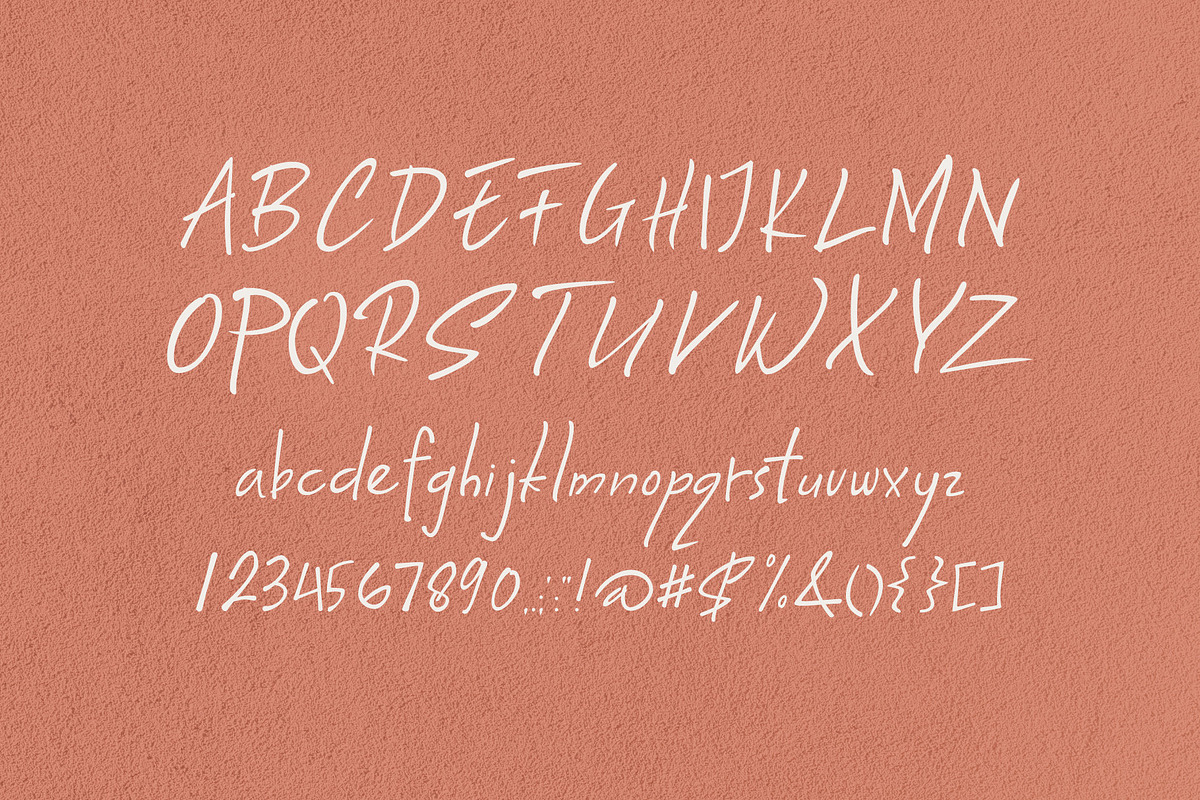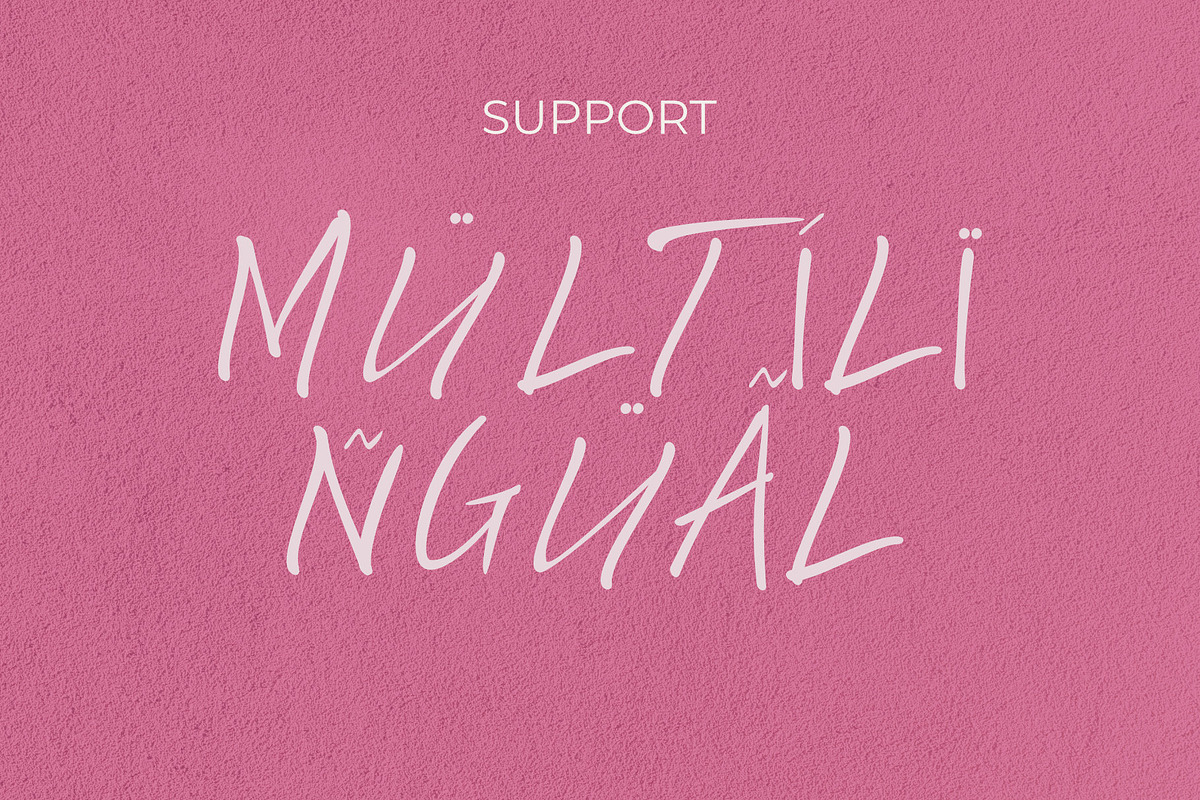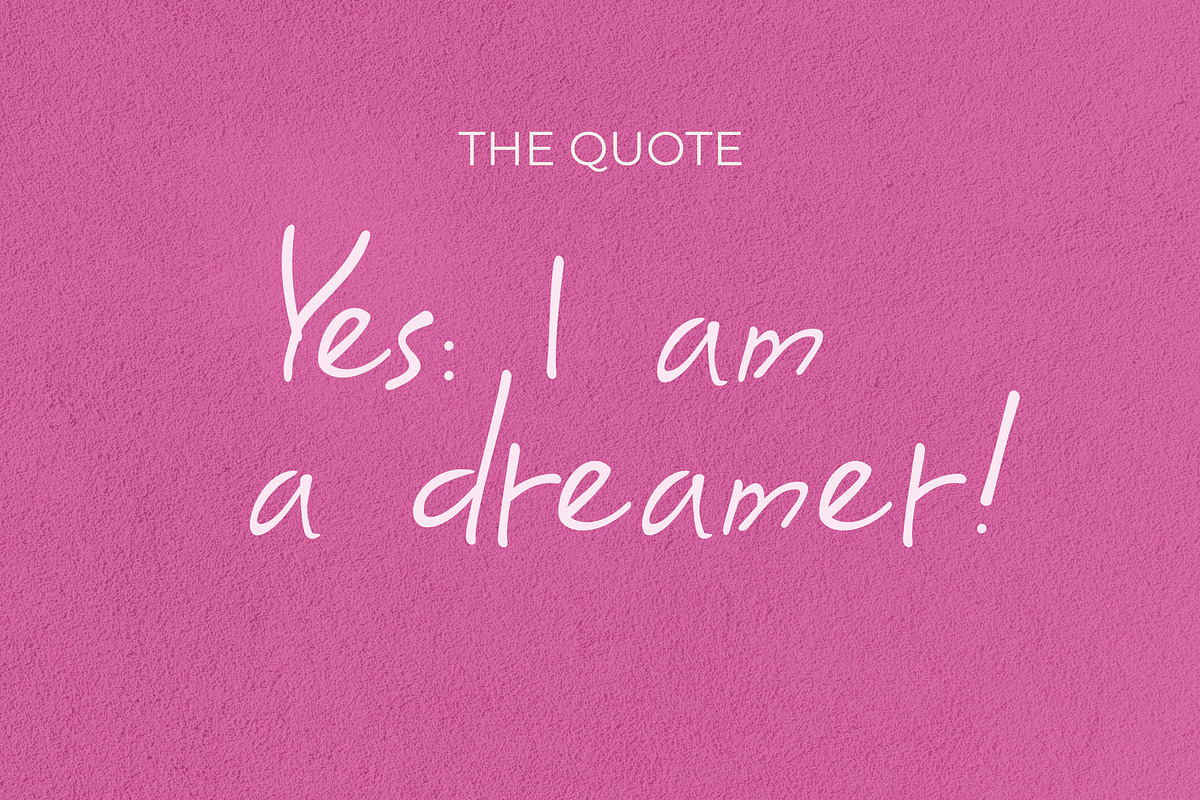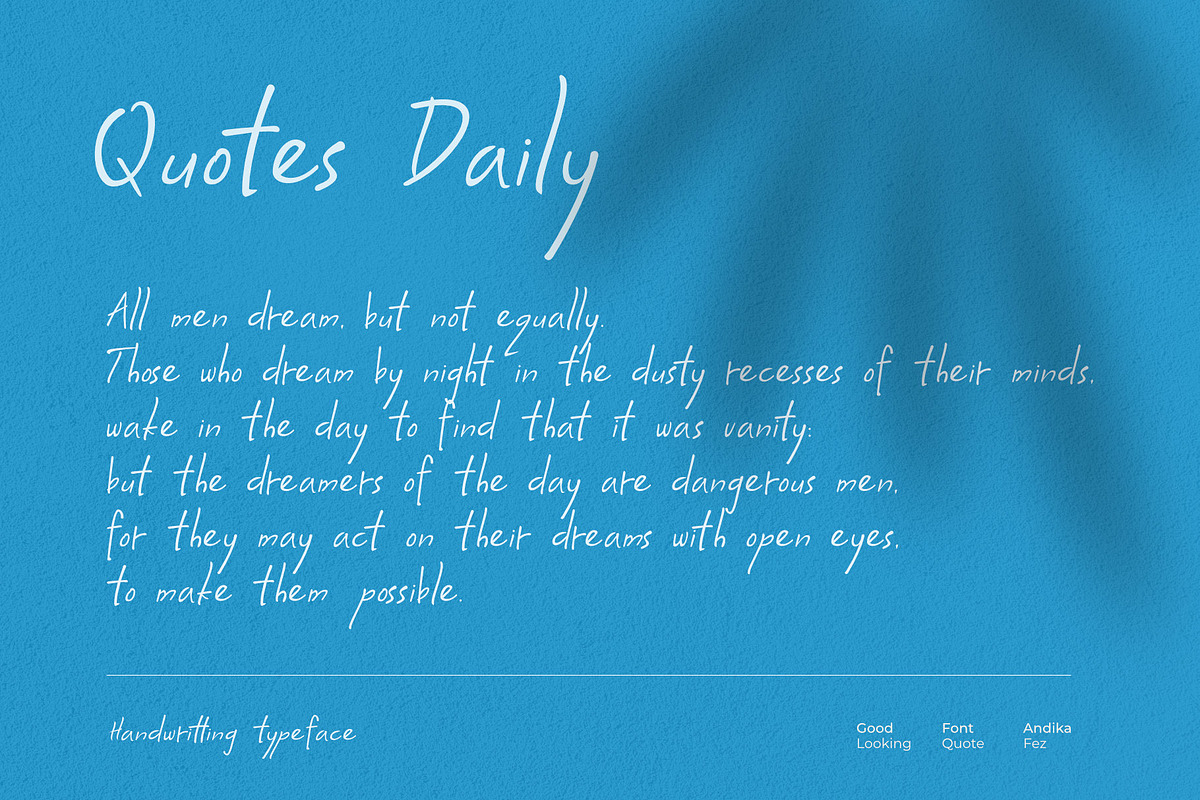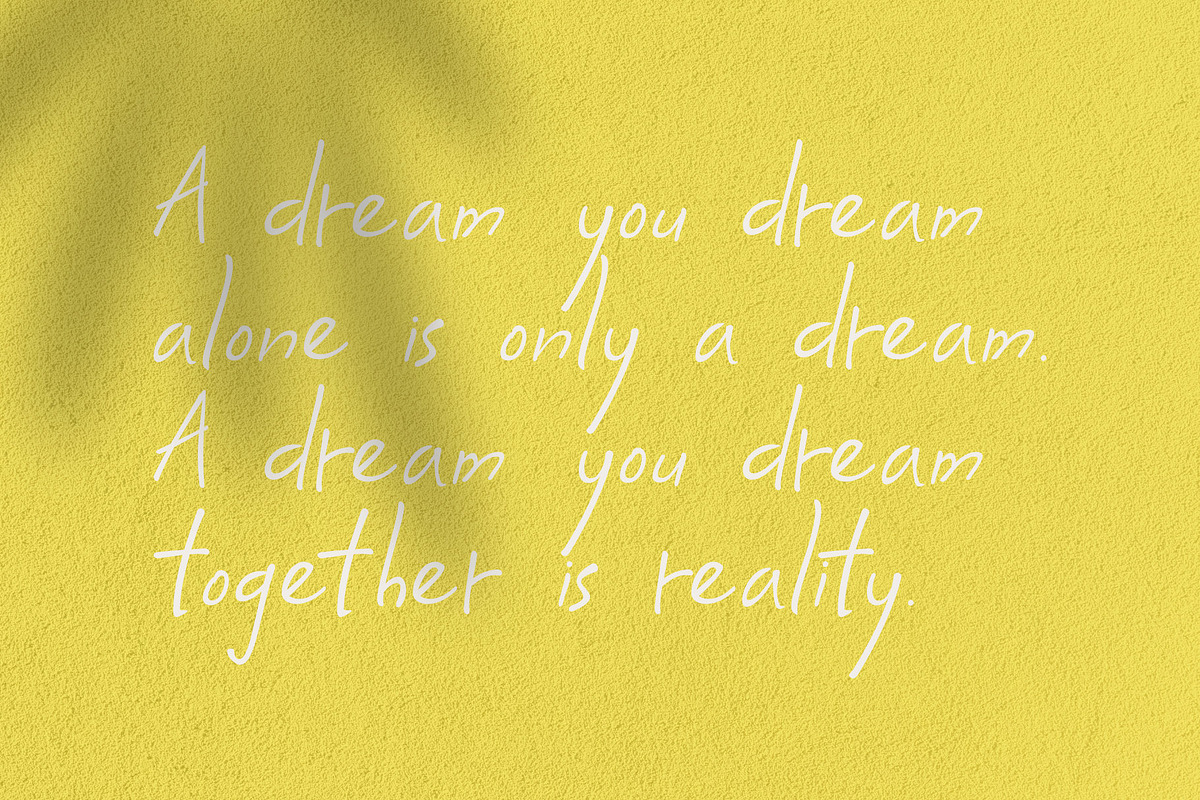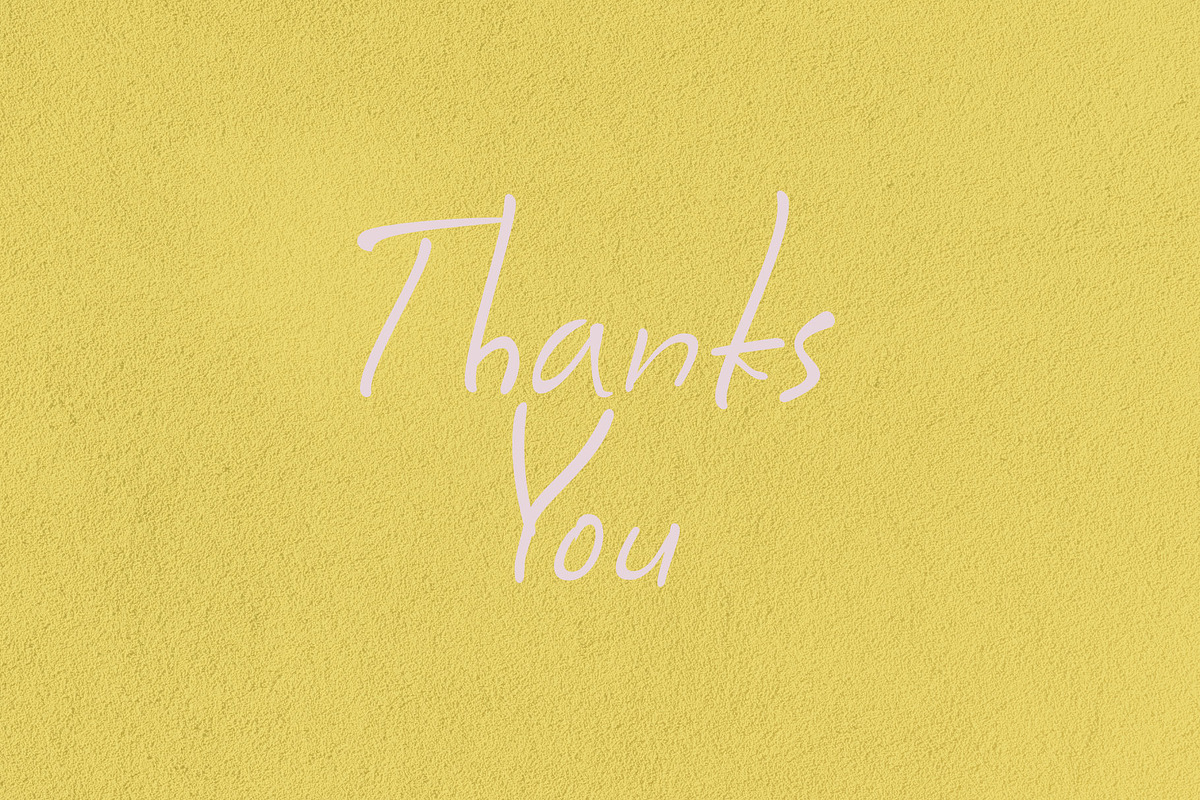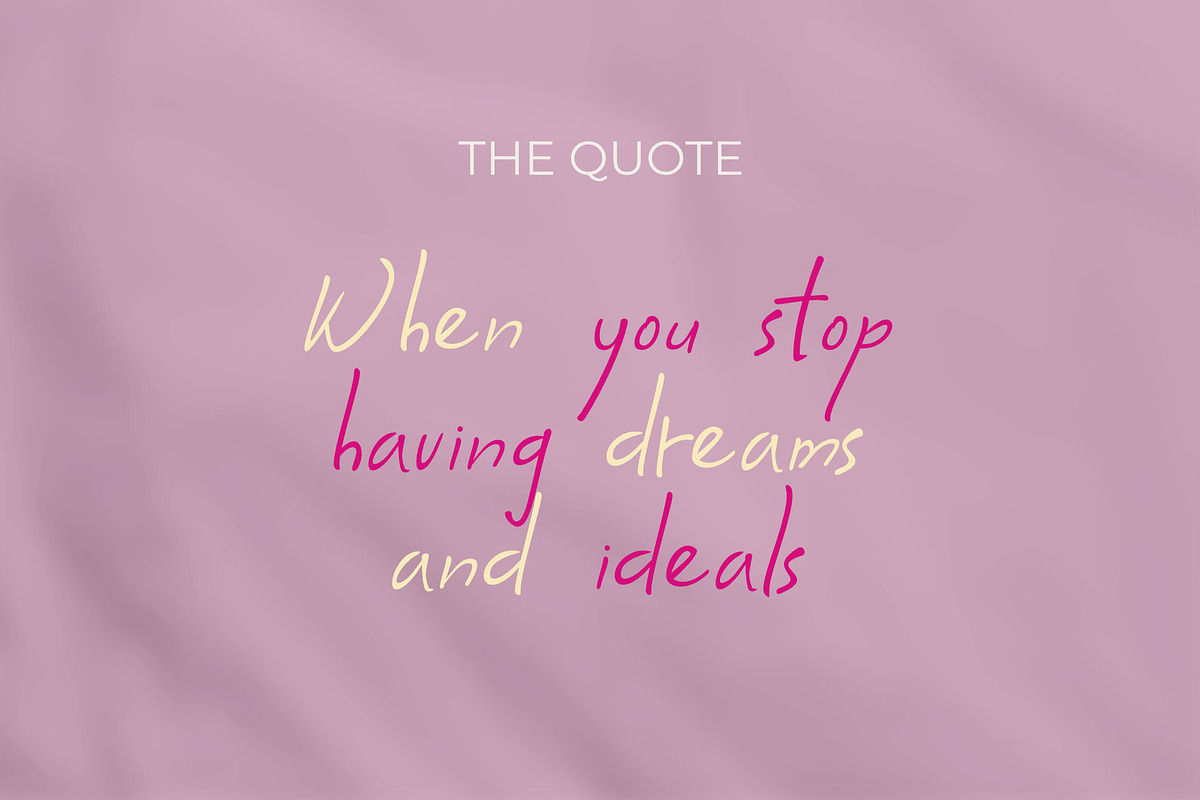
Coconote
Hello everyone, introduce my font. “Coconote” font is made with great taste. Bean fonts are very suitable to be placed on your project such as for weddings, printing, advertising, campaigns, posters, book titles, and so on.